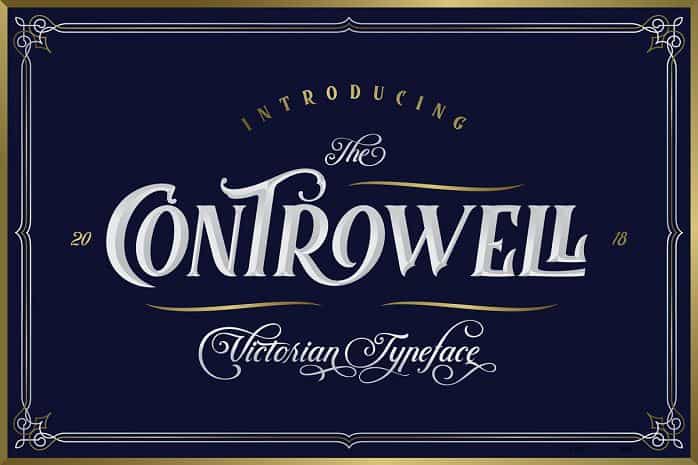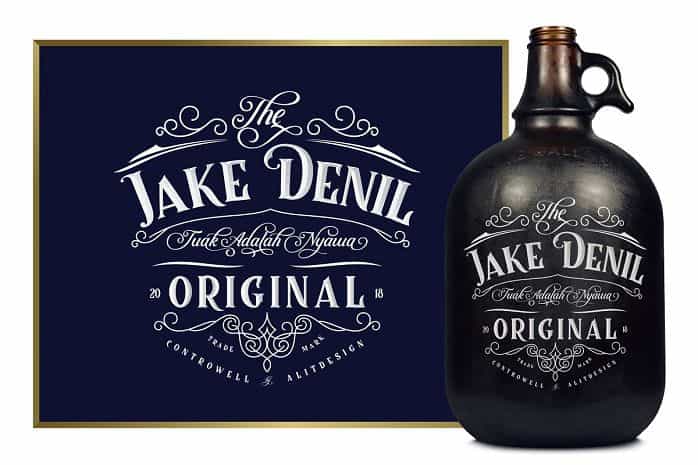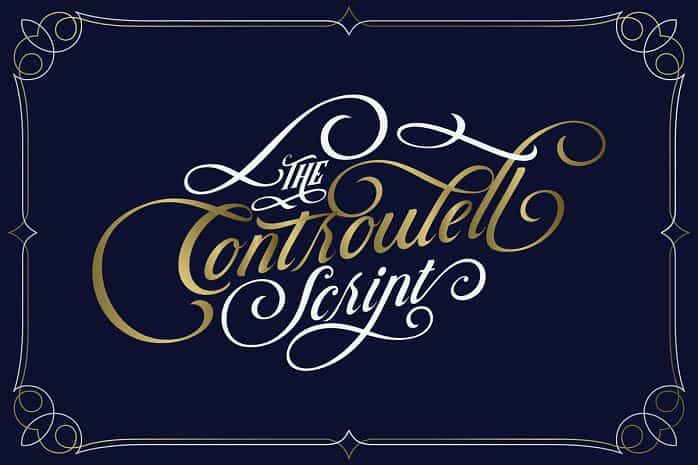
Discover Controwell Victorian Typeface, part of the Calligraphy collection—a versatile and unique font perfect for adding a personal touch to your projects. Download it for free and enjoy crafting designs with style, from invitations to social media posts. This font is available exclusively for personal use, giving you the freedom to create without limits. Unlock your creativity with Controwell Victorian Typeface today!
Introducing Controwell Script Font. Controwell Typeface which is a Serif and Script typeface. Controwell Serif Regular has 2 layers that produce a cool metal effect. What is more, there are numerous other characters you can choose from that will best fit your liking. This font is a perfect choice for logotype design, packaging design, beer label and vodka or whiskey label designs. It can also be used in poster designing as well as Victorian book cover designing.